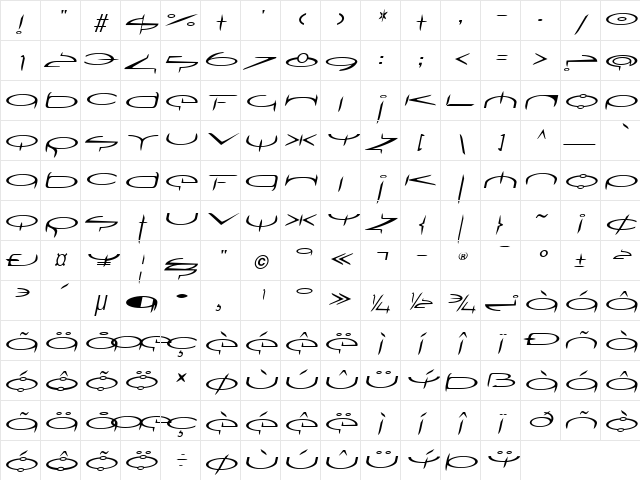
Complete SubmergeTwo LT Regular Italic glyph index. Displaying only characters natively supported by SubmergeTwo LT Regular Italic font.
SubmergeTwo LT Regular is a composed and adaptable typeface that performs quietly and consistently across a wide range of design contexts. The slanted form adds forward momentum and visual energy. Its slender proportions lend an understated elegance to any composition.
Pro Tip: Use SubmergeTwo LT Regular for emphasis, pull quotes, and subheadings where its slanted energy can add rhythm to the layout.